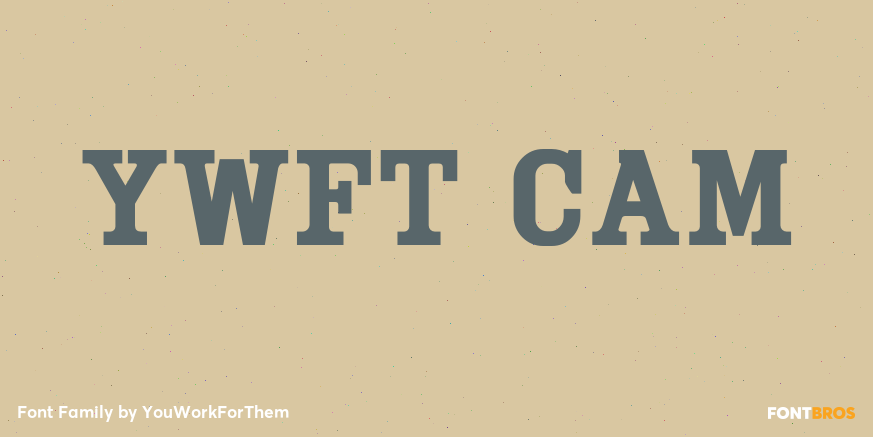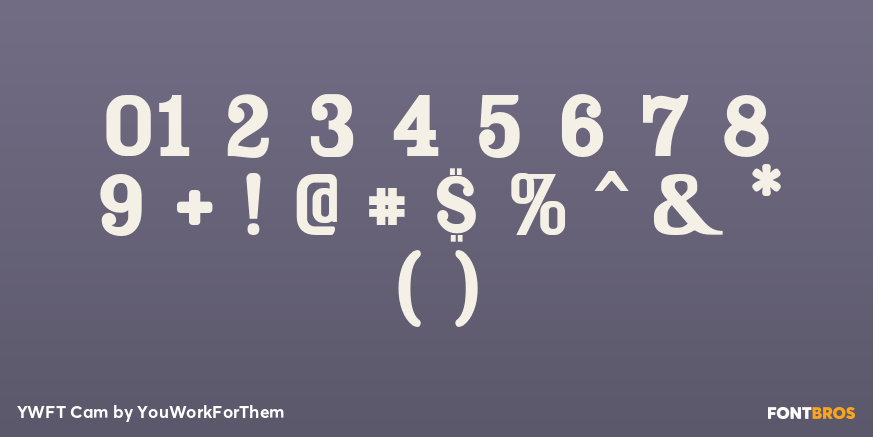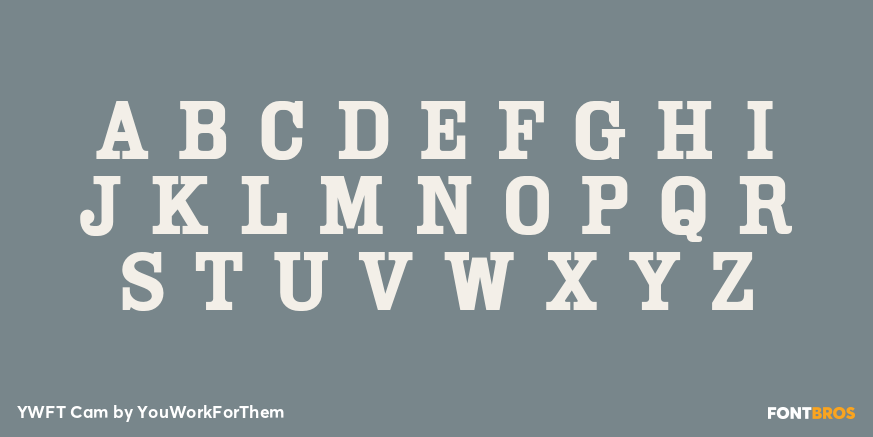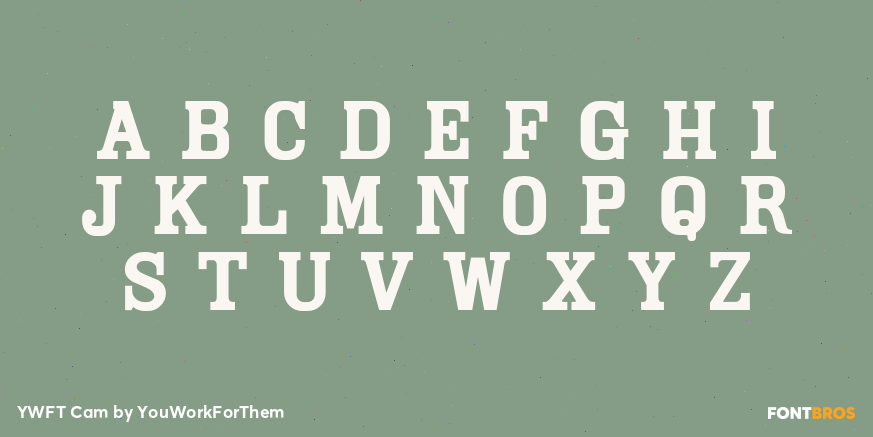
YWFT Cam
Font Family by YouWorkForThem
It ain't good for some fonts to live too long, pilgrim. That's why YWFT Cam was designed, as a fresh and unique wood-type typeface option for designers. YWFT Cam is a uni-case typeface design but also uses the lowercase to offer alternate design options for your project. The overall style contains a woodblock feel but can be used in more elegant and fashionable projects as well. YWFT Cam was converted to opentype format in 2010. Designed exclusively by Michael Cina and YouWorkForThem.